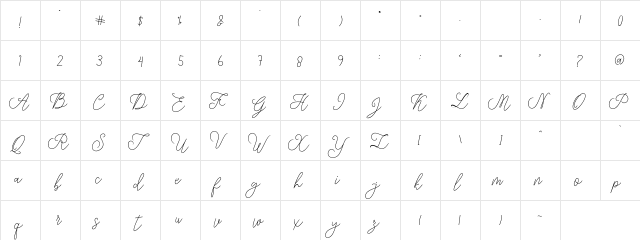
modista script Regular
Design Context for modista script Typeface
modista script brings a calligraphic fluidity to the page — its connecting strokes and expressive curves give it an unmistakably human quality.
Font Pairing: Combine modista script with a simple geometric sans for maximum contrast — the tension between flowing curves and clean structure is a classic typographic pairing.
Pro Tip: Use modista script for short runs of text — names, titles, or taglines. Extended body copy in script faces tires the eye quickly.